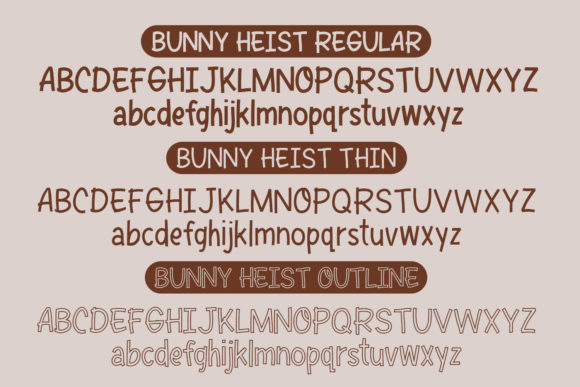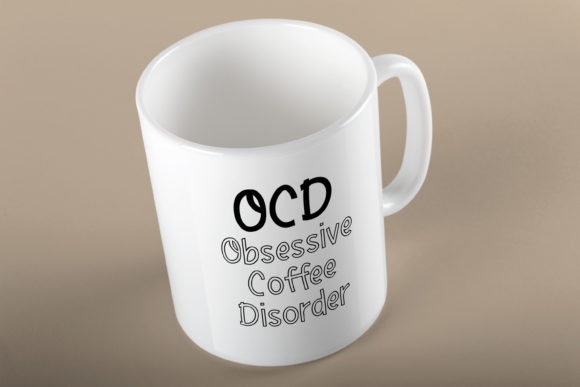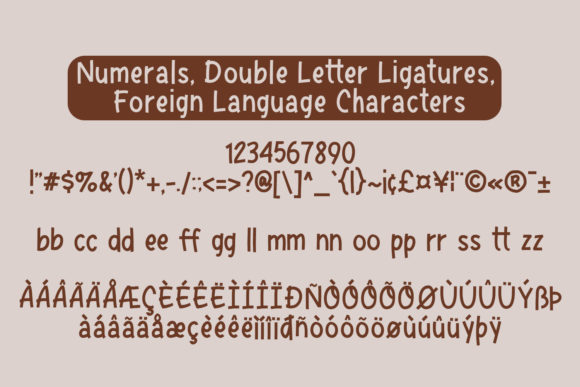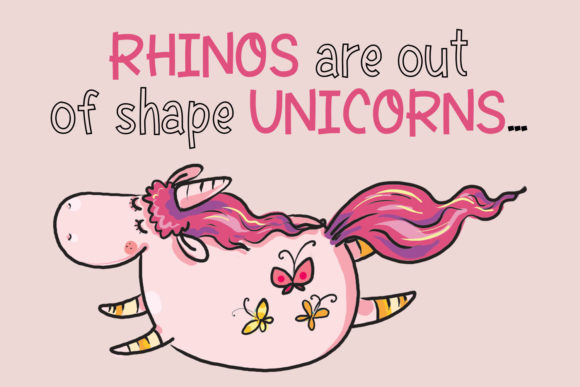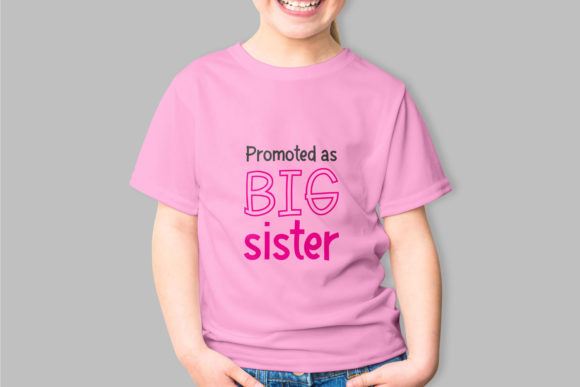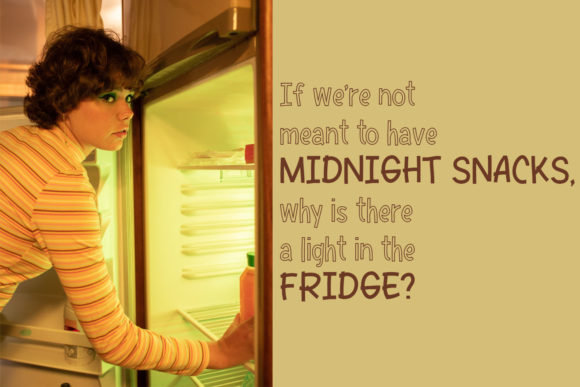
Bunny Heist Font: The Ultimate Display Font for Your Design Projects
Bunny Heist is a frolic and cute display font that will turn any design project into a standout! If you’re a designer or crafter looking for a unique and playful font to add a touch of whimsy to your work, then Bunny Heist is the perfect choice. In this article, we’ll dive into the features and benefits of Bunny Heist, and explore how it can elevate your design projects to the next level.
What is Bunny Heist Font?
Bunny Heist is a display font designed to bring a sense of fun and playfulness to your designs. With its cute and quirky style, it’s perfect for projects that require a touch of personality. Whether you’re working on a logo, poster, or social media graphic, Bunny Heist is sure to make your design stand out from the crowd.
Key Features of Bunny Heist Font
• Frolic and Cute Design: Bunny Heist features a unique and adorable design that’s sure to capture the attention of your audience.
• Display Font: Bunny Heist is a display font, making it perfect for headlines, titles, and other prominent text elements in your designs.
• Easy to Read: Despite its playful design, Bunny Heist is easy to read, even at smaller sizes.
• Versatile: Bunny Heist can be used for a wide range of design projects, from logos and posters to social media graphics and more.
Benefits of Using Bunny Heist Font
So why should you choose Bunny Heist for your design projects? Here are just a few benefits of using this amazing font:
• Adds Personality to Your Designs: Bunny Heist brings a unique and playful personality to your designs, setting them apart from more generic fonts.
• Increases Engagement: The cute and quirky design of Bunny Heist is sure to capture the attention of your audience and increase engagement with your content.
• Perfect for Branding: Bunny Heist is a great choice for branding projects, as it can help to create a fun and memorable identity for your business.
How to Use Bunny Heist Font in Your Design Projects
Using Bunny Heist in your design projects is easy! Here are a few tips to get you started:
• Pair with Other Fonts: Bunny Heist pairs well with other fonts, so don’t be afraid to experiment with different combinations to find the perfect look for your design.
• Use for Headlines and Titles: Bunny Heist is perfect for headlines and titles, where its playful design can really shine.
• Experiment with Colors: Bunny Heist looks great in a variety of colors, so don’t be afraid to experiment and find the perfect hue for your design.
Who Can Benefit from Bunny Heist Font?
Bunny Heist is a versatile font that can be used by a wide range of designers and crafters, including:
• Graphic Designers: Bunny Heist is a great choice for graphic designers looking to add a touch of personality to their designs.
• Crafters: Bunny Heist is perfect for crafters who want to add a playful touch to their DIY projects.
• Small Business Owners: Bunny Heist can be used by small business owners looking to create a fun and memorable brand identity.